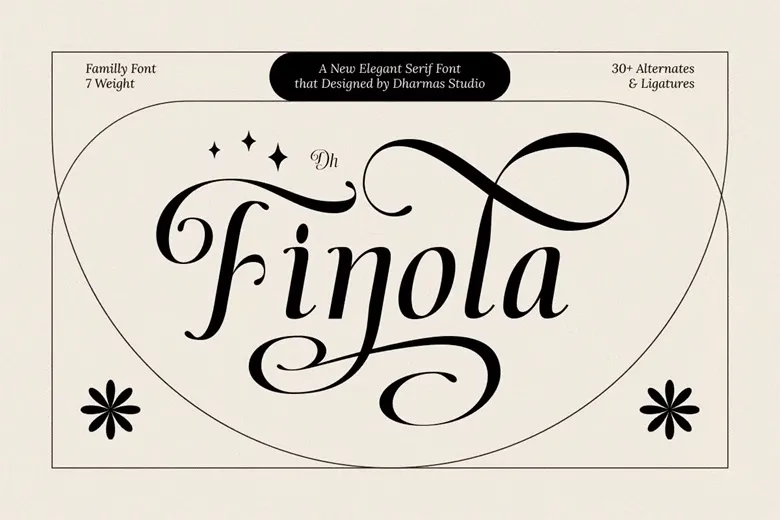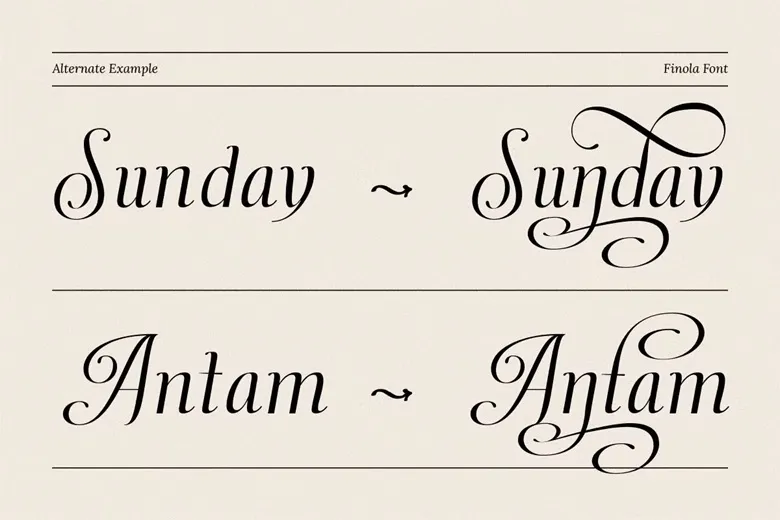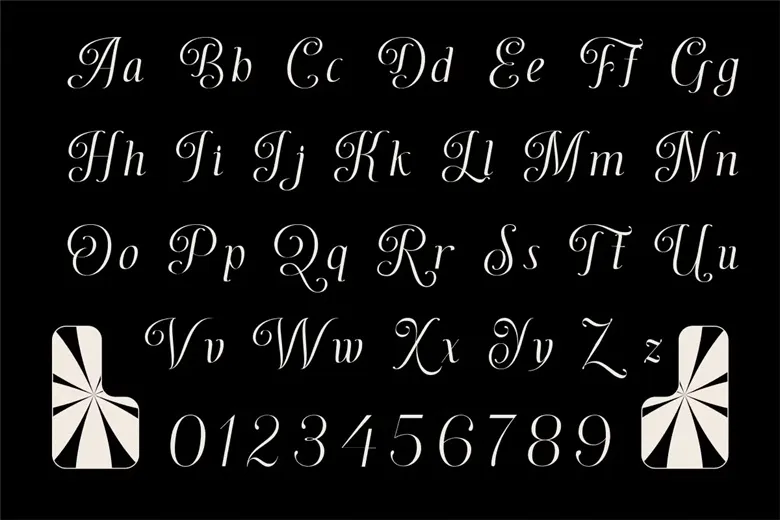
The serif font Dh Finola is luxurious and is based on the beauty of the Baroque architecture and classical calligraphy. Dh Finola has the fine flowing strokes with its high-contrast high-quality swashes, expressing lavish affinities with refined and stylish character, which make it suited to wedding designs, stylish branding, editorials, fashion, and luxurious packaging. Dh Finola is available in 7 classy fonts Thin, Extra Light, Light, Regular, Medium, Semi Bold and Bold, giving the designers the complete freedom to control the tone and visual effect.
With upper and lower case letters, both numerals and punctuations, as well as high multilingual coverage, Dh Finola is also equipped with elegant ligatures and hundreds varieties of stylistic alternates to assist you in creating memorable texts.